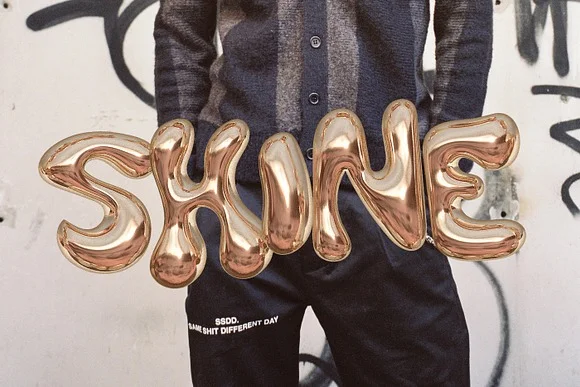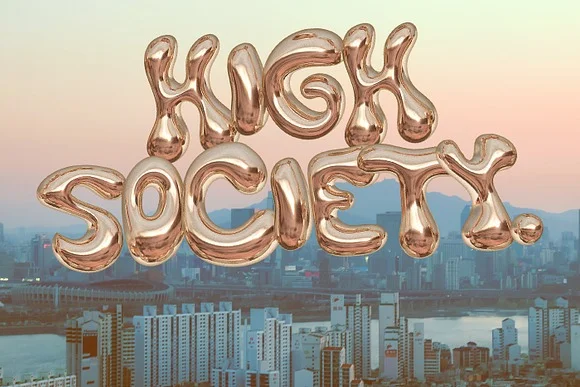
Elevate your creative projects with the Bling Gold Balloon SVG Font, a stunning typeface that combines elegance and playfulness. This unique font features a delightful balloon design, adorned with a luxurious gold finish that adds a touch of glamour to any text.
Perfect for invitations, party decorations, or digital designs, the Bling Gold Balloon SVG Font is versatile and easy to use, allowing you to effortlessly create eye-catching graphics.
You can resize the font without losing quality, ensuring that your designs maintain their stunning appearance whether printed or displayed online. Make your next project shine with this enchanting font that captures the joy of celebration and the allure of gold.